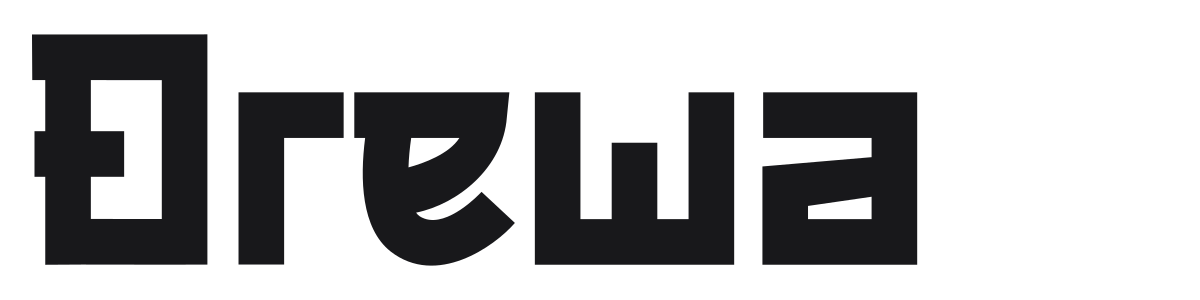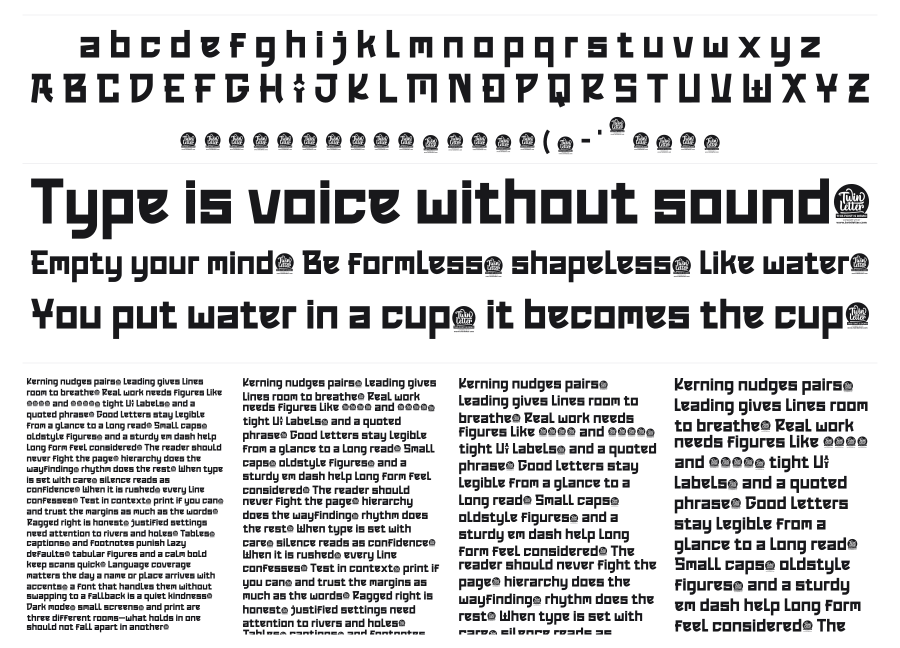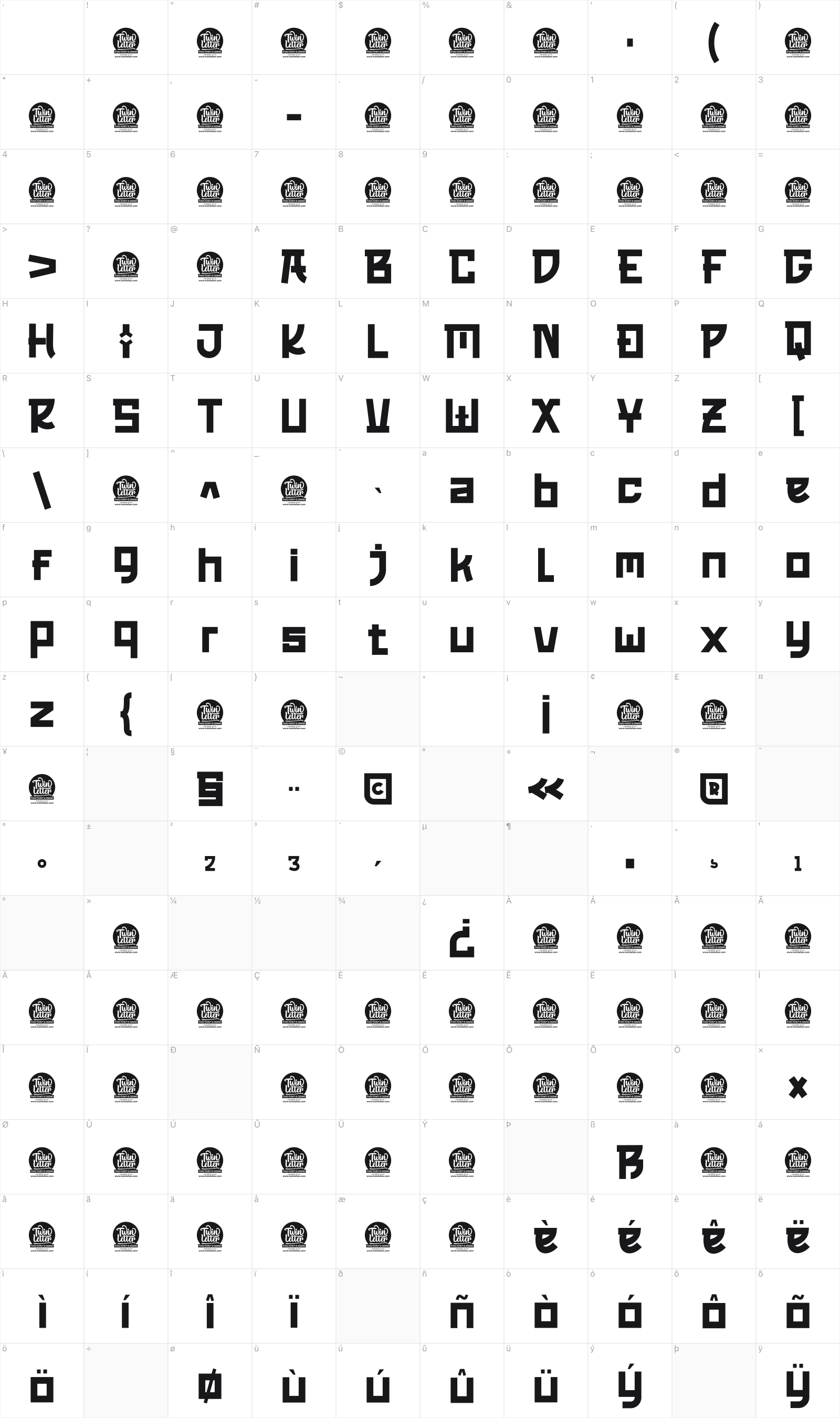
Orewa
Orewa is a bold, blocky sans-serif with heavy squared geometry and a retro-futurist edge. The flat terminals and near-monoweight strokes give it a dense, mechanical rhythm that reads as industrial and confident at headline sizes. It carries a strong 1970s flavor while still feeling contemporary enough for gaming, music, and streetwear contexts.